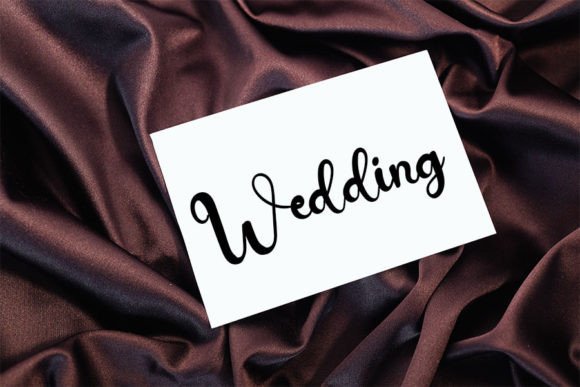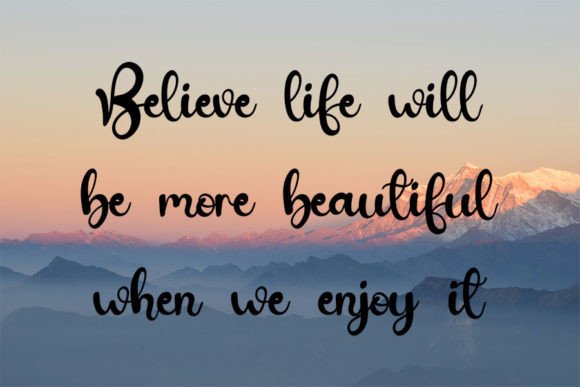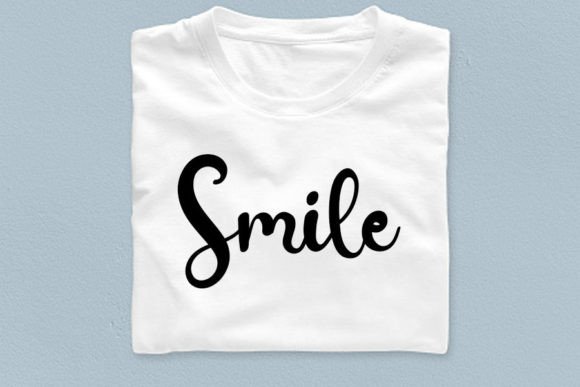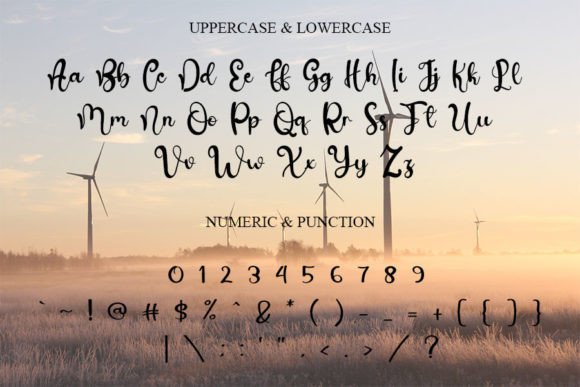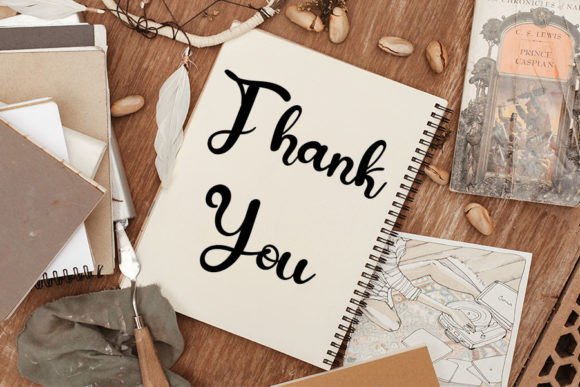
The Magic of Handwritten Design: Discovering Anime Font
Have you ever found yourself scribbling in a notebook, lost in thought, as the world around you fades away? For many creatives, this moment is where the magic happens – a spark of inspiration that sets off a chain reaction of ideas and projects. For me, it was during one such moment that I stumbled upon the enchanting Anime Font.
With its delicate, elegant lines and quirky charm, Anime Font is the perfect fit for designers looking to add a touch of whimsy to their work. This beautifully crafted font is designed to elevate your logos, branding, social media, and crafty DIY projects to the next level. Its unique aesthetic makes it a valuable asset for any designer seeking to stand out from the crowd.
Anime Font Key Features
- Font Family: Anime Font is a unique digital font designed to mimic the style of Japanese anime and manga. It comes in various font styles, including bold, italic, and regular.
- Character Set: The font includes a comprehensive set of characters, including Latin, Cyrillic, and Japanese scripts, making it suitable for a variety of languages and applications.
- Unique Characteristics: The font’s unique characteristics include exaggerated lines, vibrant colors, and dynamic shapes, which are reminiscent of traditional Japanese animation and manga styles.
Anime Font Review
Overall, I was quite excited to try out the Anime Font, but my experience was a mixed bag. Here’s what I think.
- The font does indeed evoke a Japanese aesthetic, which is perfect for anime-inspired projects or themes.
- The bold and playful style of the font is engaging and catches the eye.
- It’s highly customizable, allowing for adjustments to letter spacing, size, and color to suit your design needs.
- The font’s stylization can sometimes make it difficult to read, especially in longer blocks of text.
- The lack of support for certain special characters and symbols can be a limitation in certain designs.
- The font may not be suitable for projects that require a more traditional or formal font style.
The Anime Font is a fun and creative option for projects that need a bold, playful touch. While it may have some limitations, it’s still a great choice for anime-inspired designs, logos, or headings. With some careful consideration of its limitations, this font can add a unique touch to your designs.